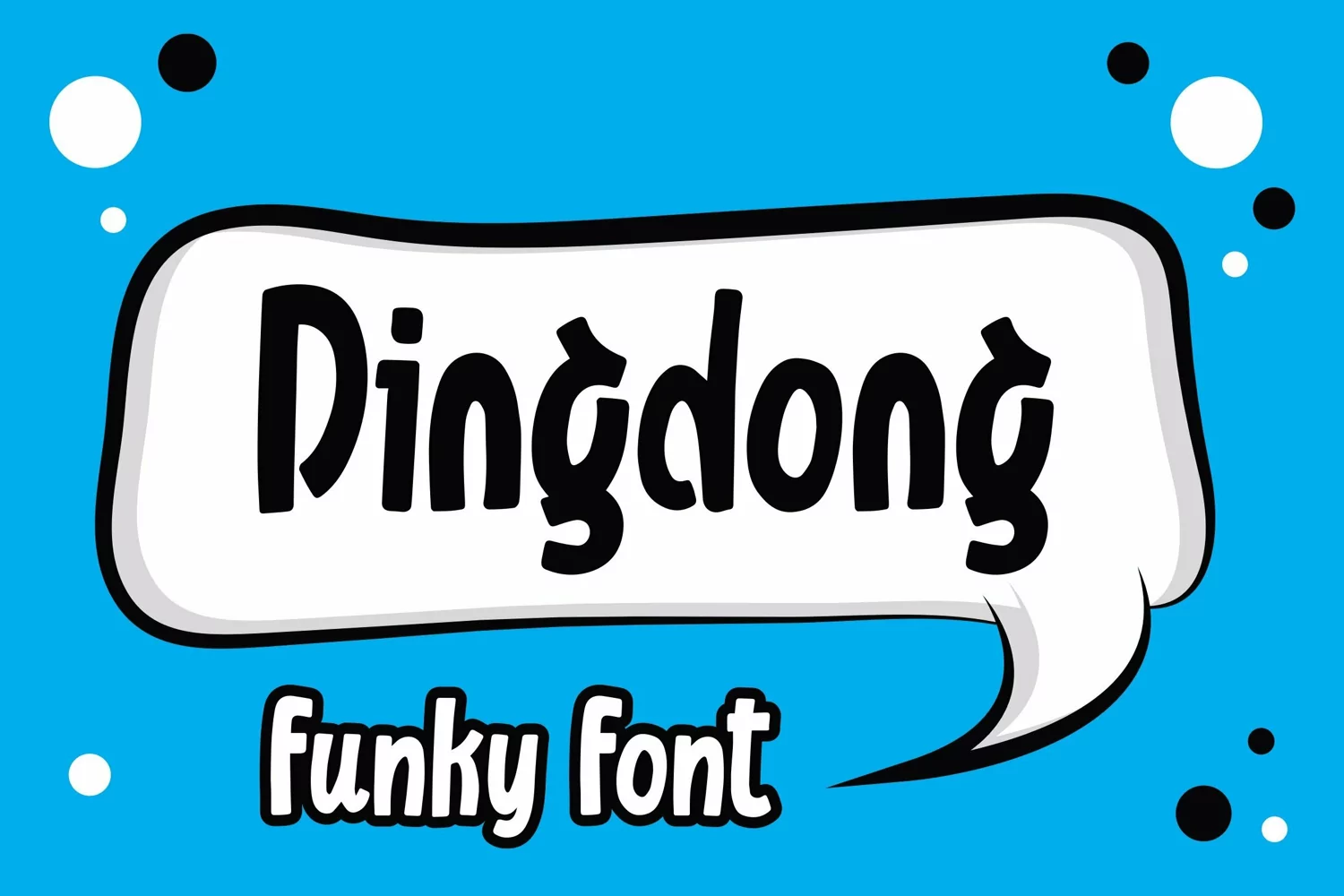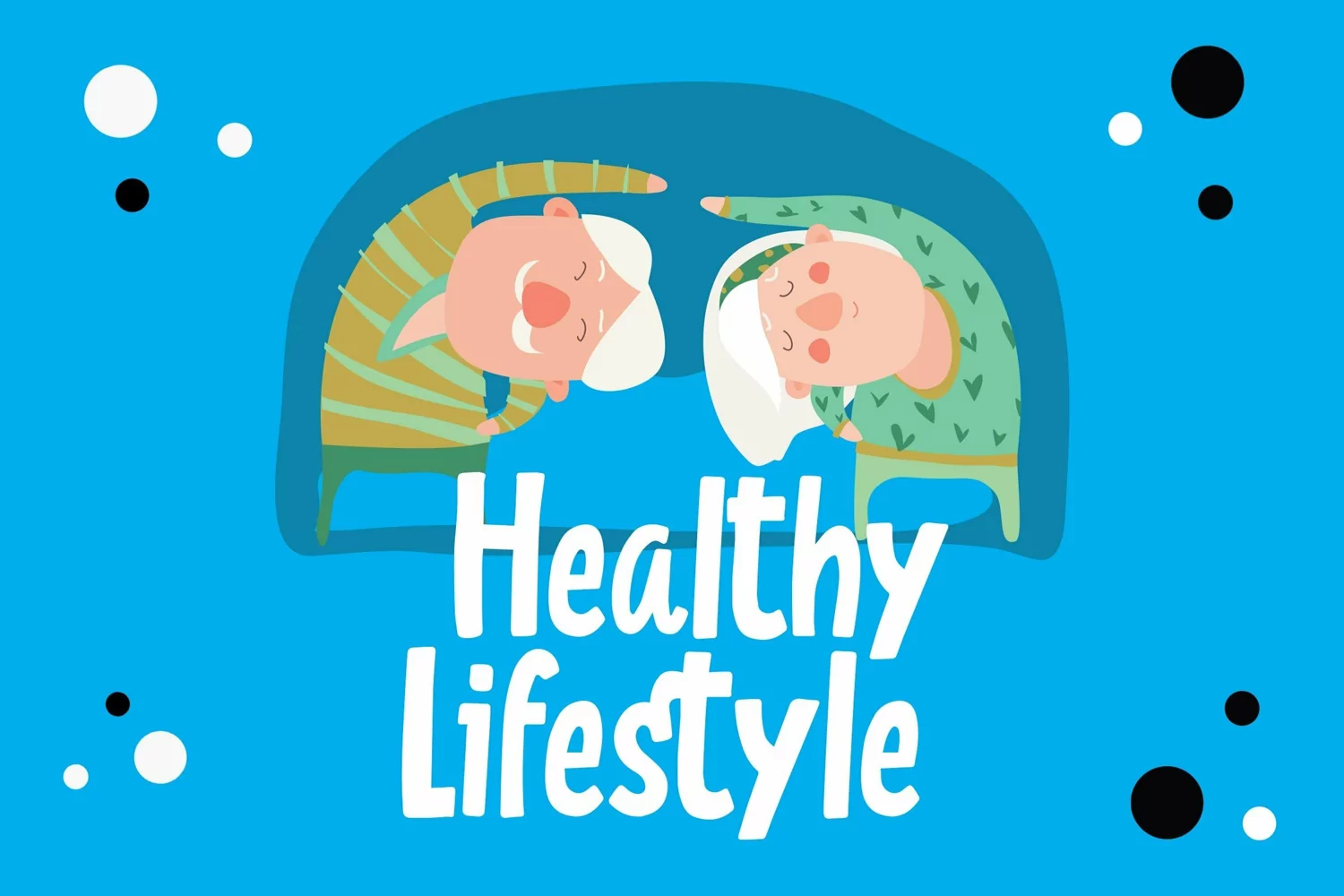
Web Font Dingdong - Funky Font that contain lowercase, uppercase, symbol, and also support multi language. There’s a lot ligatures in this font. This Font also comes with ligatures, alternates and many more. this font suitable for fashion, branding, catalog and other design what you want.
Dingdong